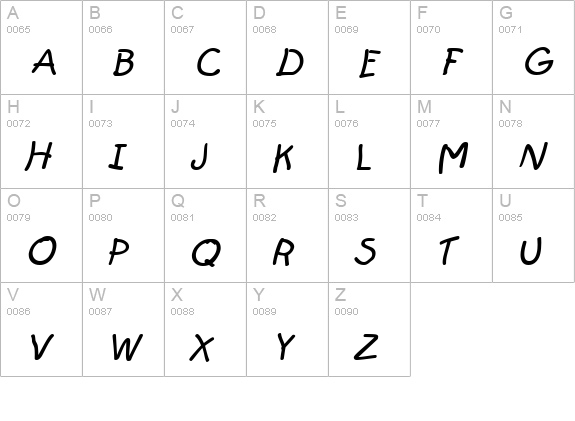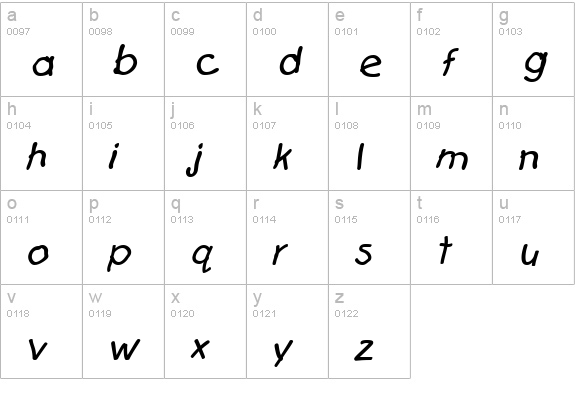
FirstGrader Italic Font Details
FirstGrader Italic is a distinctive, italic variant in the FirstGrader typeface family \xE2\x80\x94 well suited to design and typography projects.
FirstGrader Italic font is a charming and playful typeface designed specifically for early learners. Its slanted letters give a sense of movement and fun, making it perfect for educational materials and children's projects. The friendly design of FirstGrader Italic font is sure to capture the imagination of young readers and make learning an enjoyable experience. Best of all, FirstGrader Italic font is available for free download at FontsMarket.com. Now you can easily incorporate this delightful font into your projects without any cost. Don't miss out on this opportunity to add a touch of whimsy to your designs with FirstGrader Italic font!